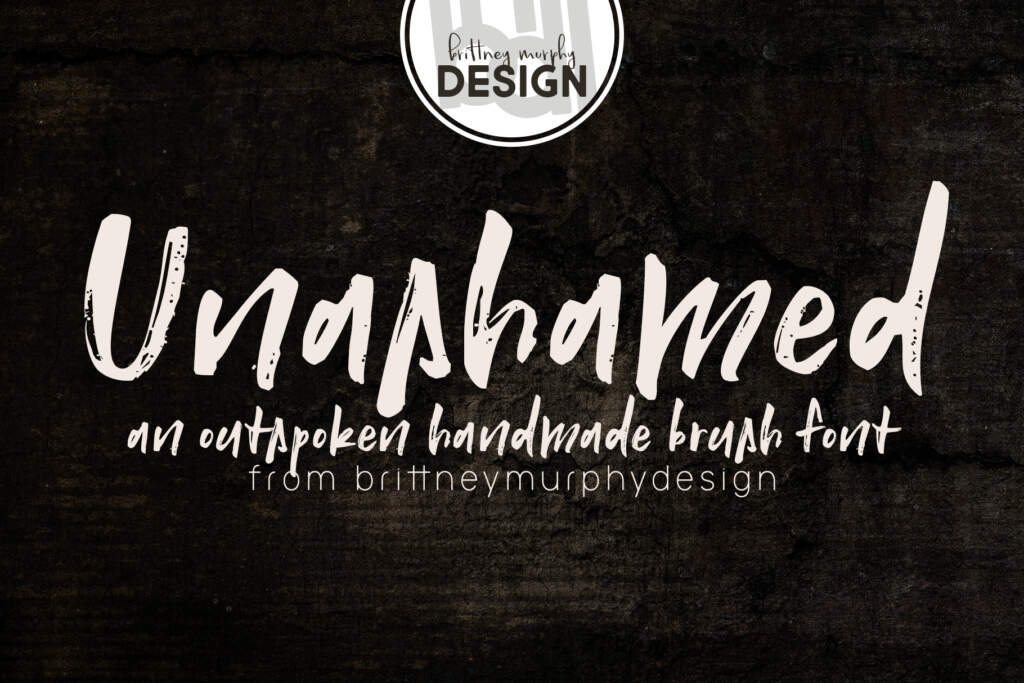
Unashamed
Unashamed Font
Unashamed Font Quote Regular
Unashamed font Regular Letters
About the Unashamed Font
The Unashamed font is a distressed brush font created in 2021 by Brittney Murphy Design. Handdrawn on paper with a brush pen and then scanned, Unashamed was created with authenticity in mind, both visually and emotionally. The abrupt, almost reckless strokes within the characters, are designed to evoke a sense of bold honesty. Unashamed would work perfectly for your concert posters, product packaging, and other graphic design products that you would like to give a bold outspoken feeling to.